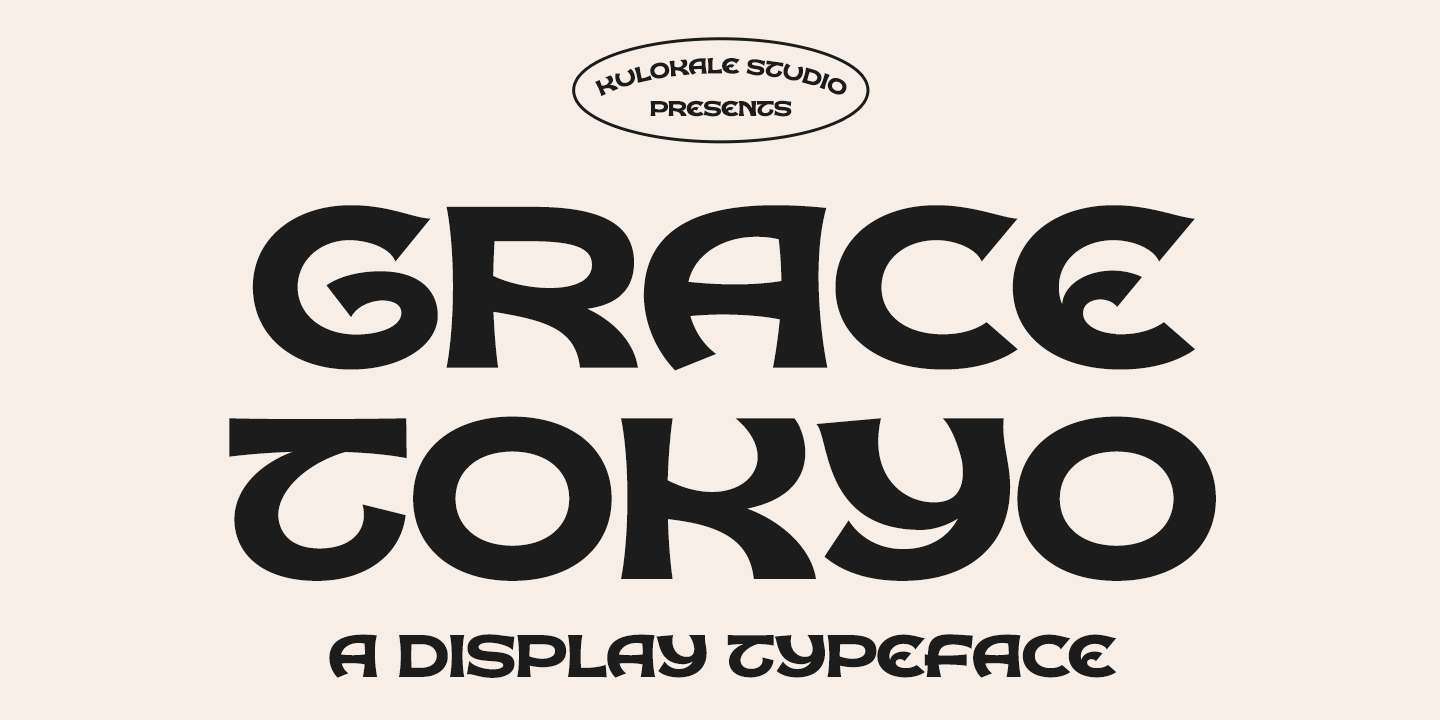
The Grace Tokyo Font is perfect for various design applications including Japanese restaurant branding, zen spa marketing, modern Asian fashion logos, Tokyo travel campaigns, minimalist lifestyle blogs, contemporary sushi bar graphics, Japanese cultural events, and elegant East-meets-West design projects. This sophisticated typeface works exceptionally well for brands celebrating Japanese aesthetics and projects requiring serene elegance with modern Asian appeal.
What makes Grace Tokyo Font exciting is its serene and sophisticated character that instantly captures the harmonious balance of traditional Japanese grace and contemporary Tokyo dynamism. The font features elegant letterforms with zen-inspired simplicity and modern aesthetics that evoke feelings of tranquility, sophistication, and cultural refinement. Its graceful styling and Tokyo-inspired appearance make it perfect for brands that want to embody Japanese elegance and connect with audiences who appreciate mindful design and cultural sophistication.
The Grace Tokyo Font family includes multiple weights and styles, offering designers flexibility for diverse Japanese-inspired applications. The family typically consists of regular, bold, light, and zen variations, along with Asian-inspired decorative elements and minimalist ornaments, providing comprehensive coverage for projects that need both cultural authenticity and visual serenity across different contemporary contexts.
Whether you're working on Japanese cuisine branding, wellness services, or East Asian cultural campaigns, Grace Tokyo Font Free Download delivers the graceful quality and visual harmony that modern Asian-inspired designers desire. The font's Tokyo-grace design combined with its excellent readability makes it an essential tool for creating compelling visual communications that celebrate Japanese culture and bring the peaceful elegance of Tokyo's refined spirit to life.